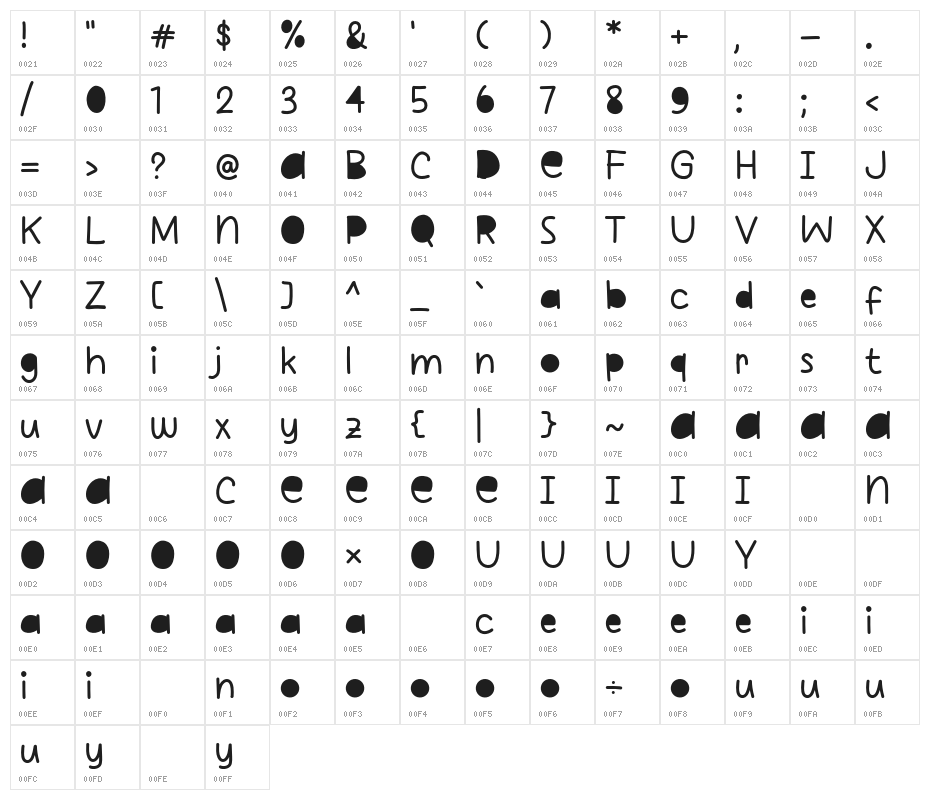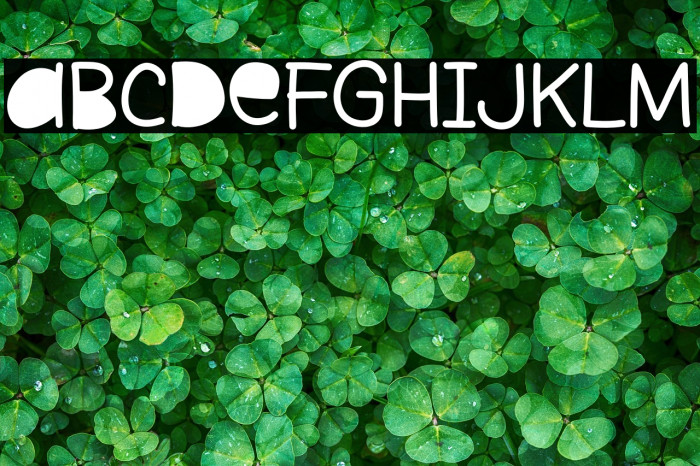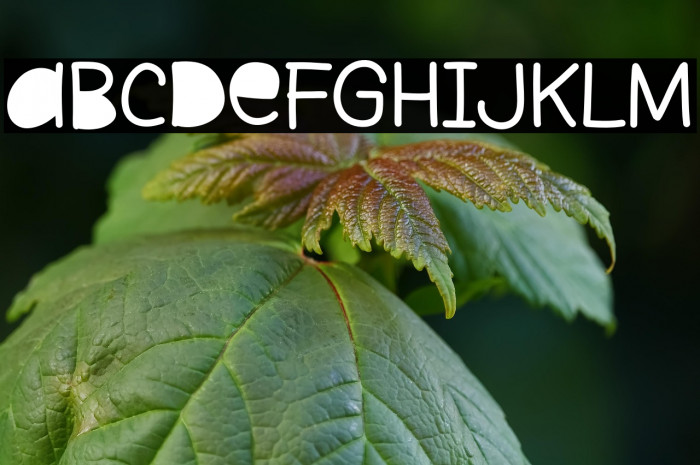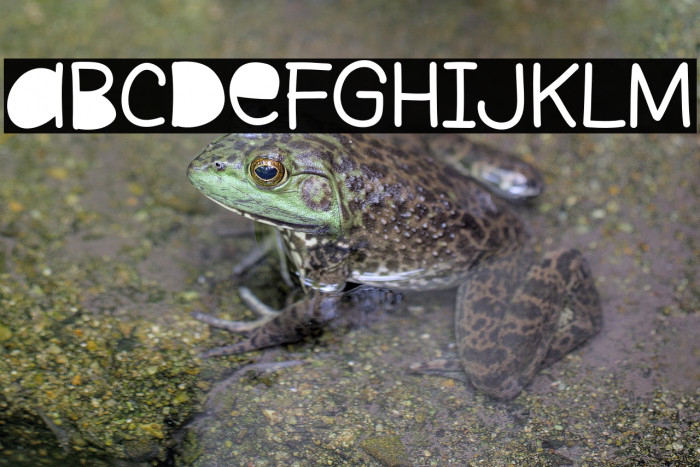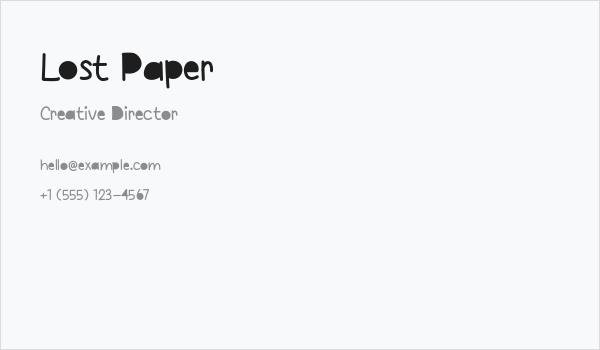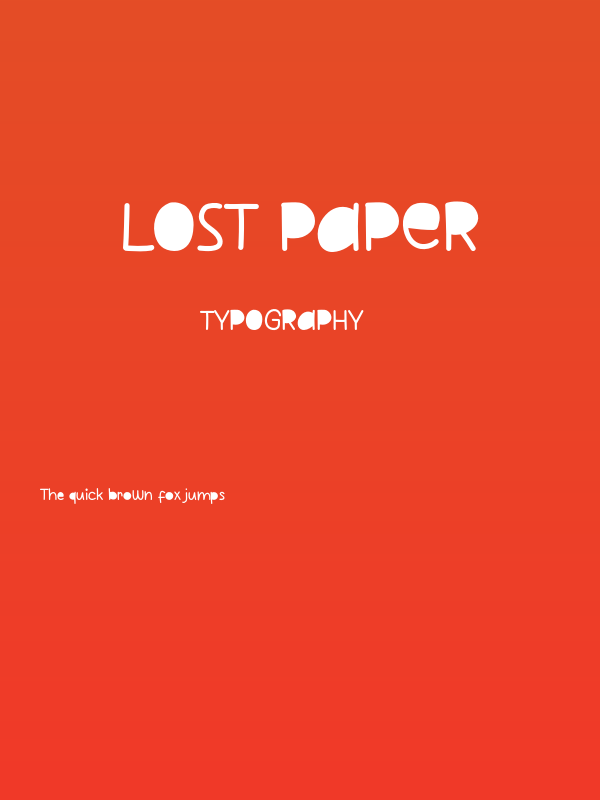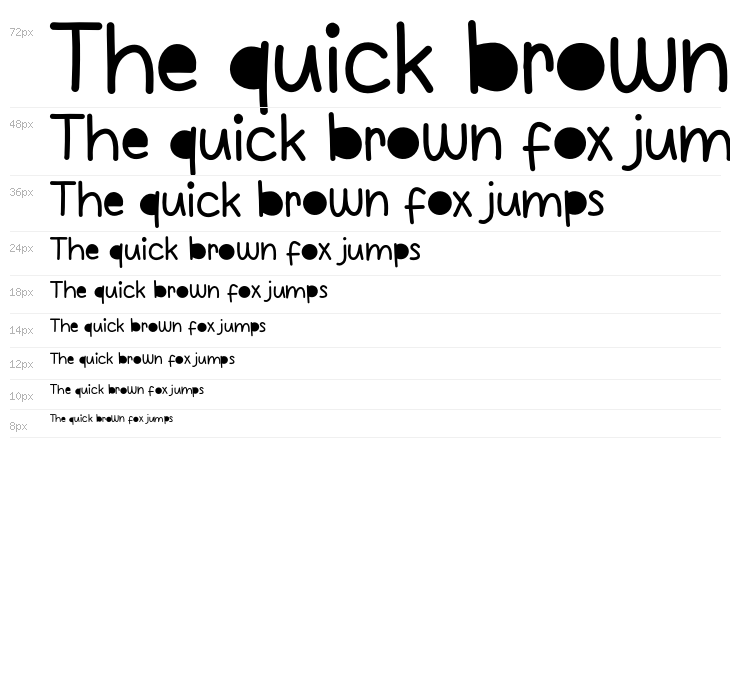
Lost Paper Font
Lost Paper Description
This playful and bold font features rounded, thick strokes that give it a friendly and approachable appearance. The characters are slightly irregular, adding a whimsical touch that is both modern and fun. The uppercase and lowercase letters maintain a consistent style, with smooth curves and a uniform thickness that ensures readability. The numbers and special characters follow the same design principles, making them easily recognizable and cohesive with the rest of the font. This font is ideal for projects that require a casual and inviting look, such as children's books, playful branding, or creative posters.
| Overall Style | Playful, Modern, Whimsical |
| Proposed Projects | Children's books, playful branding, creative posters, casual invitations, and fun merchandise. |